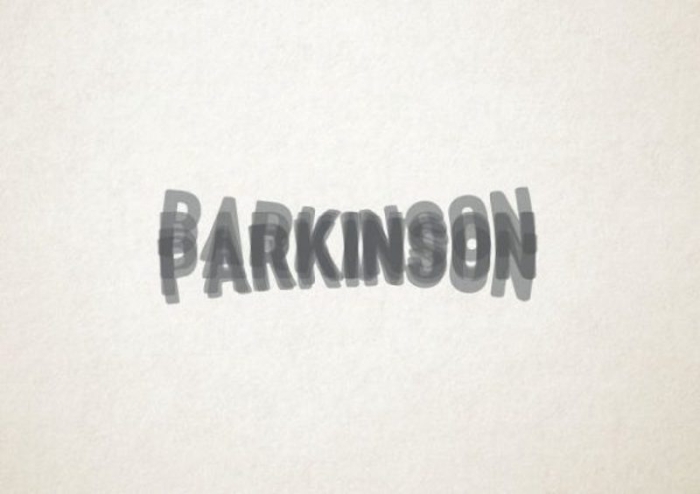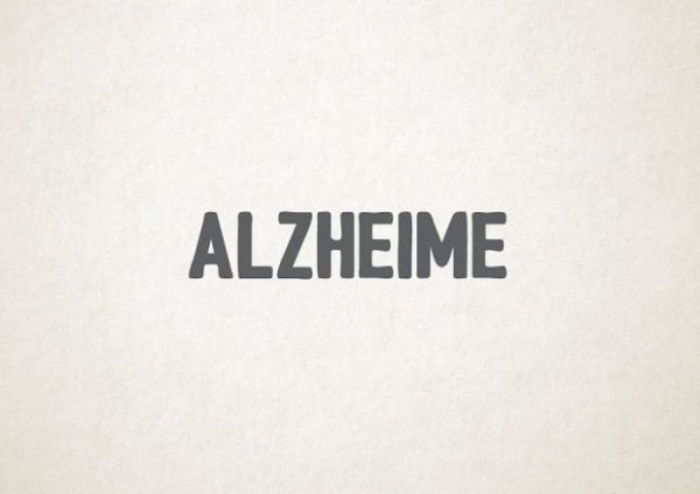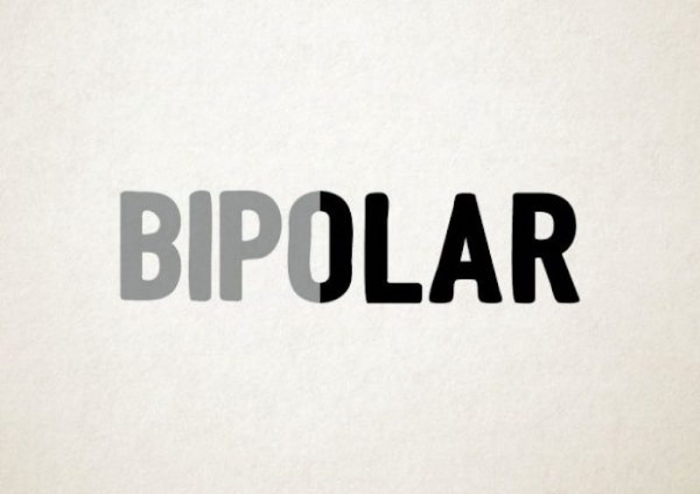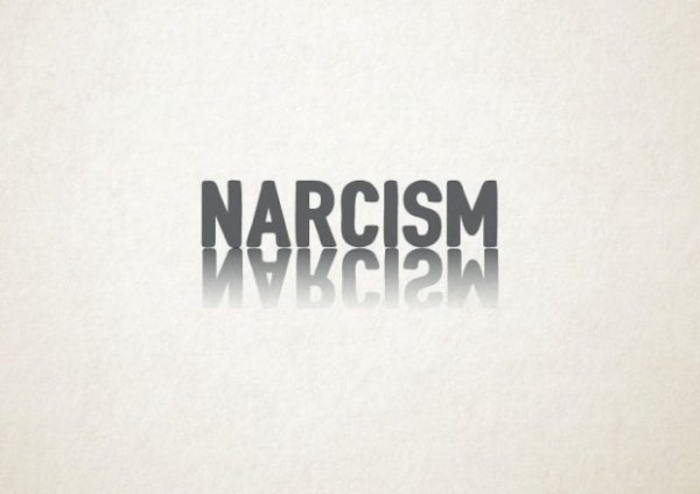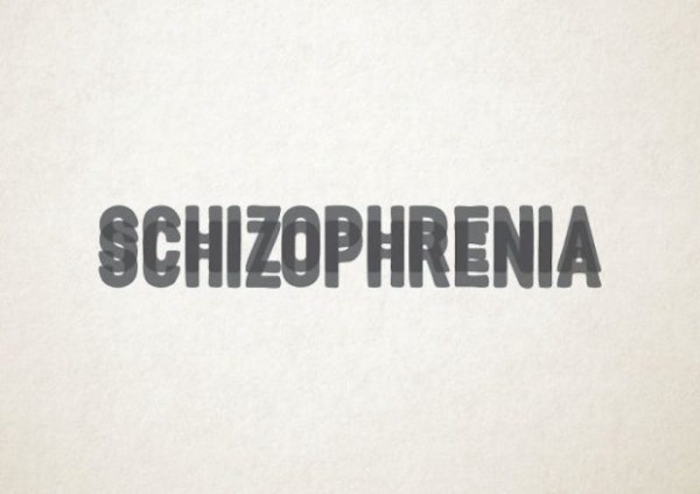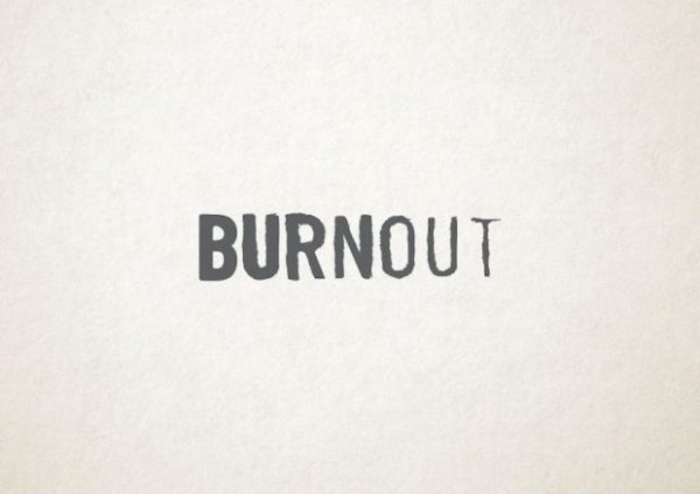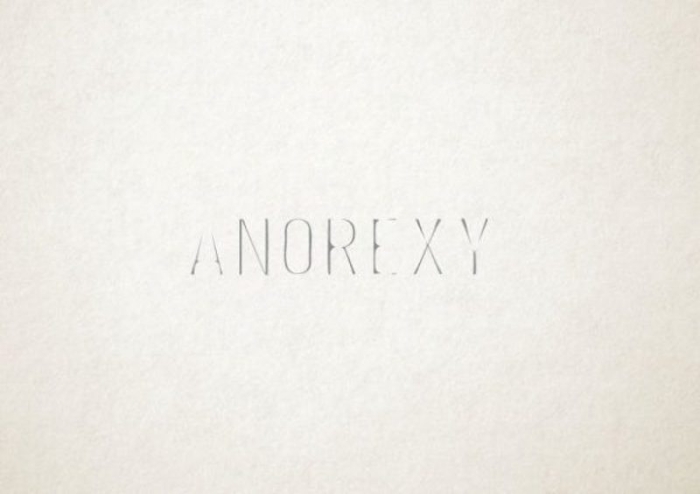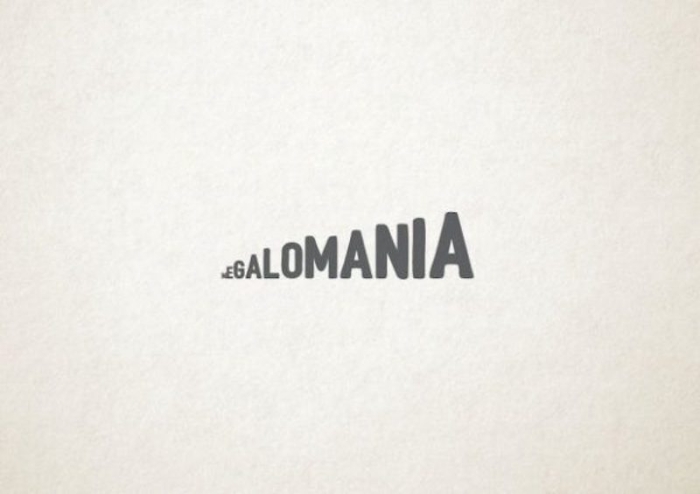
Graphic Designer Creates 11 Unique Typographies To Explain Mental Disorders
Popular neurological diseases and mental disorders explained via Inak Ticho’s explicit typographies.
There is still a lot of misunderstanding on the subject of mental health. Apart from the historically taboo nature of the topic, these neurological diseases and mental disorders can be relatively confusing to many people.
One Slovakian graphic designer, Inak Ticho, took it upon themselves to create more awareness of these issues by creatively highlighting the different aspects of the diseases. They allowed the words themselves to speak on behalf of the nature of the ailment in a special display of the poignant interplay between an illustration and its meaning.